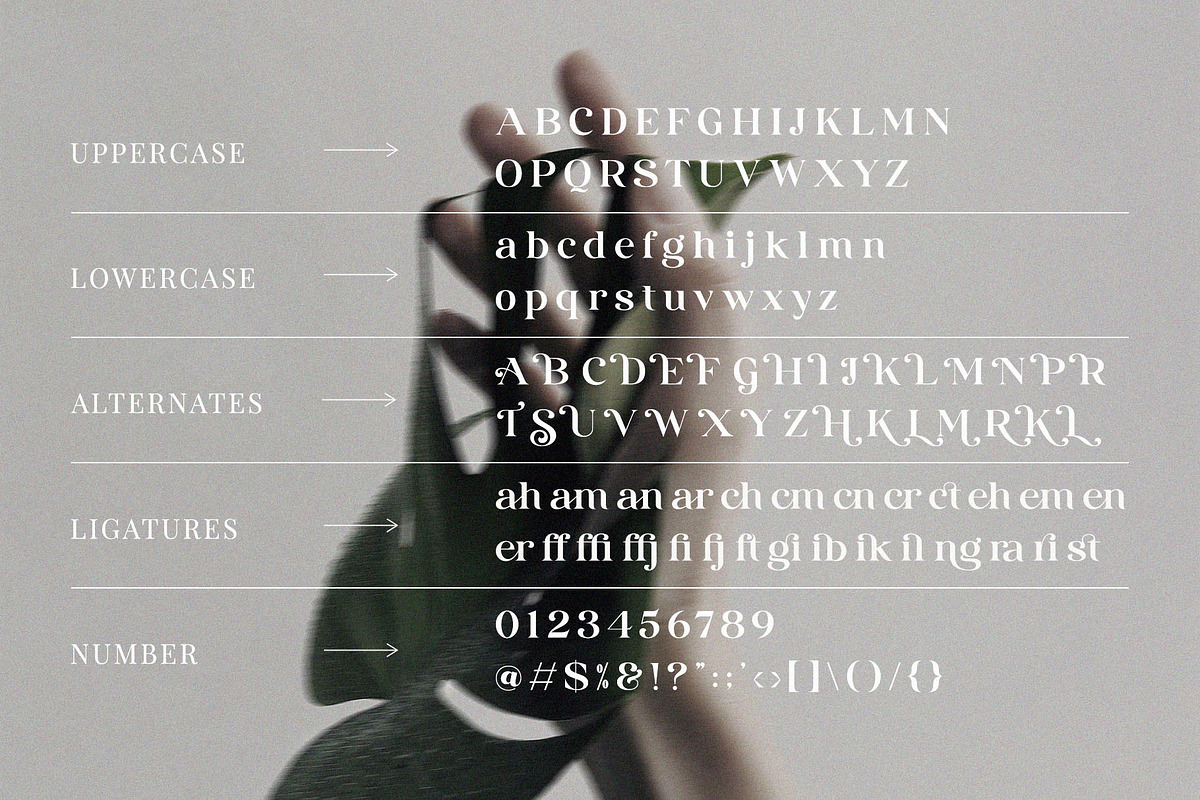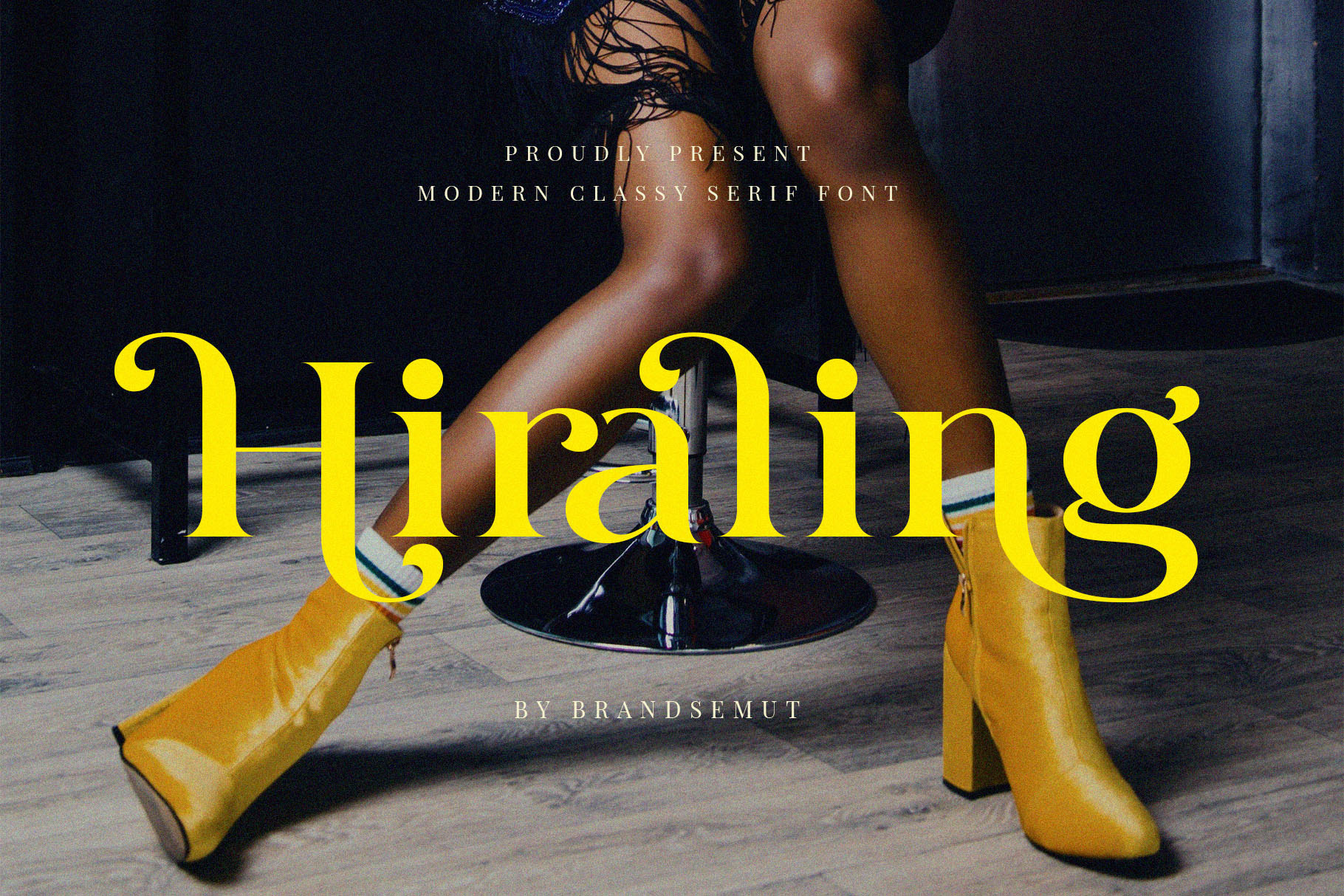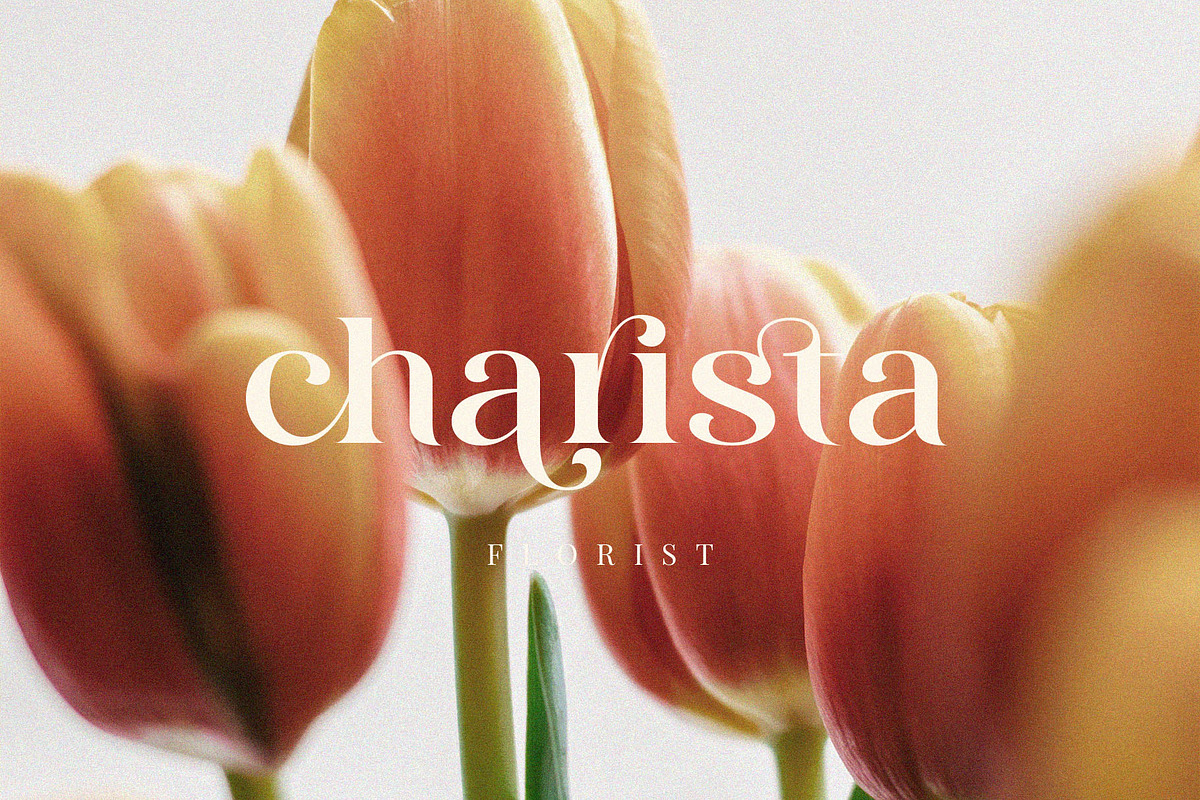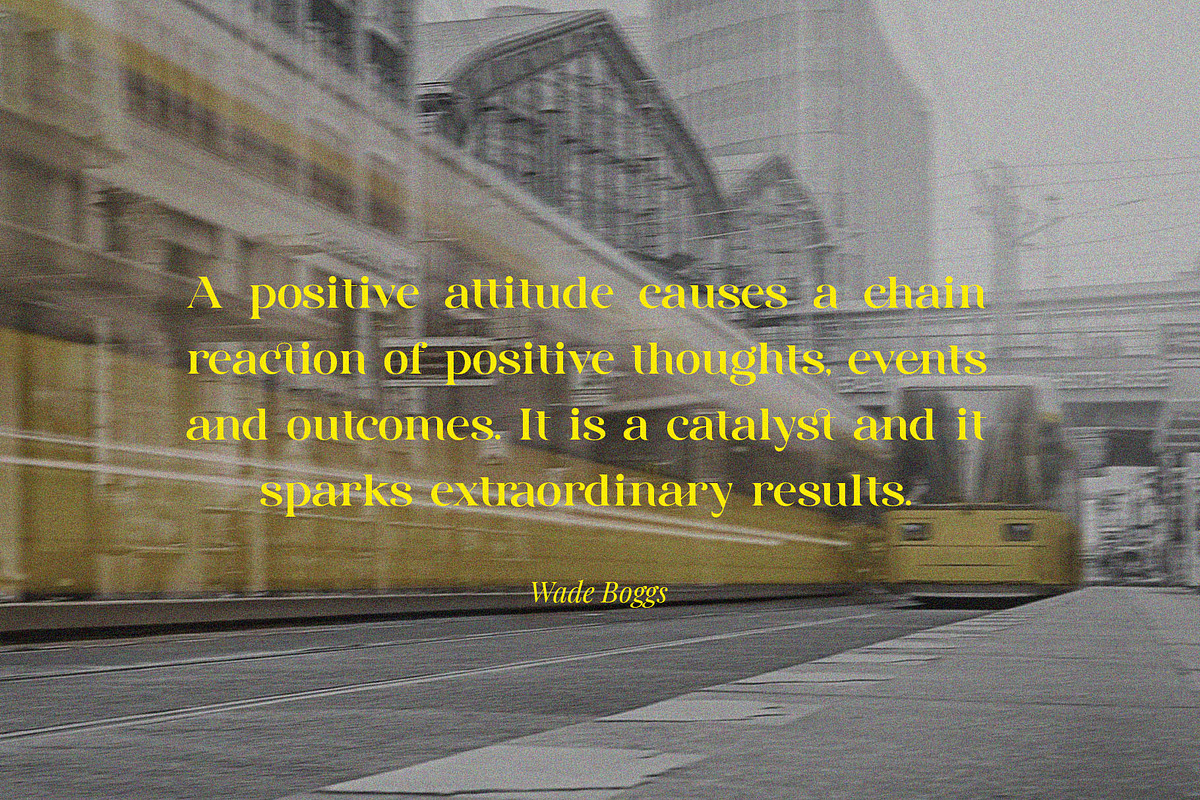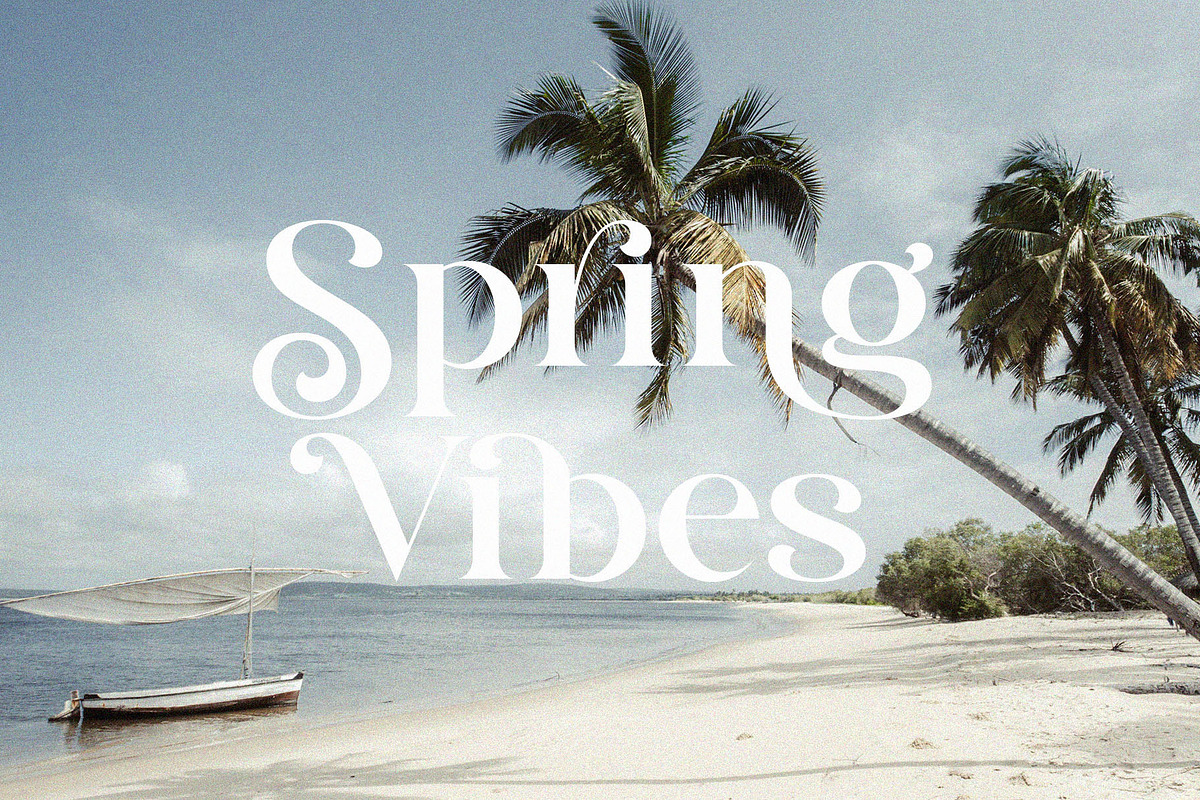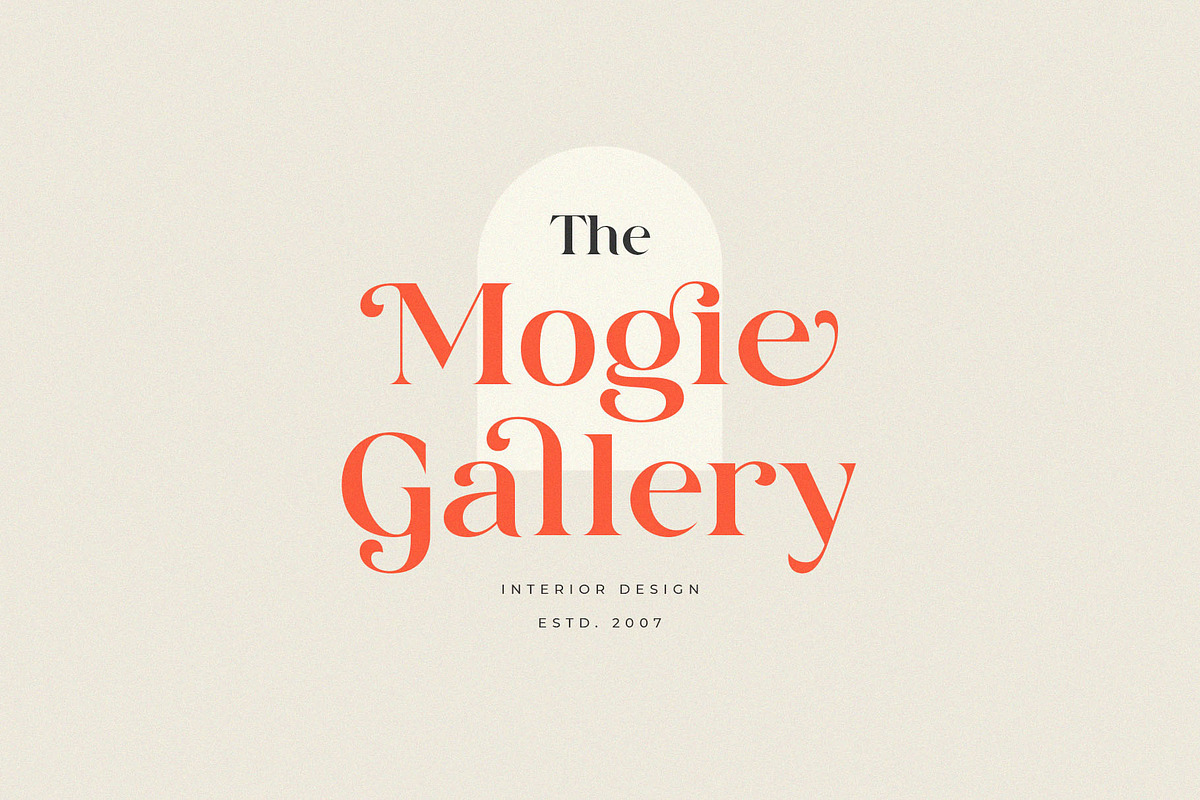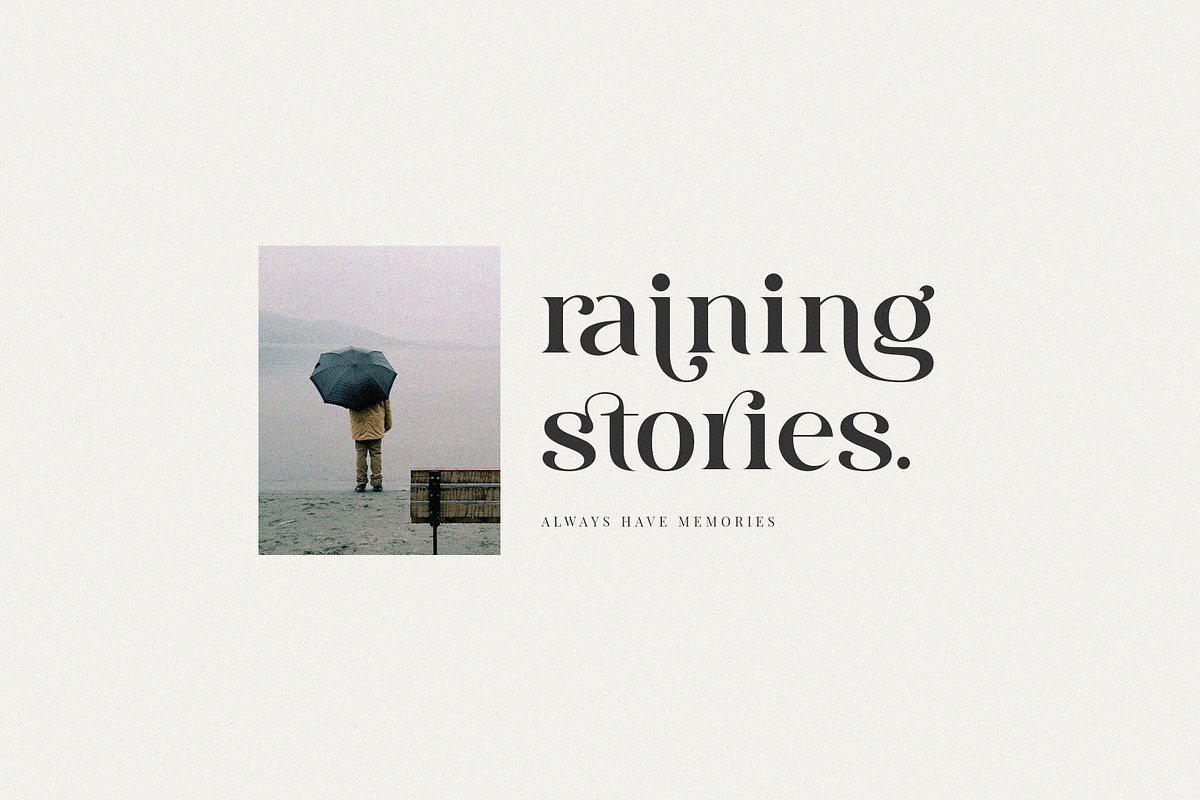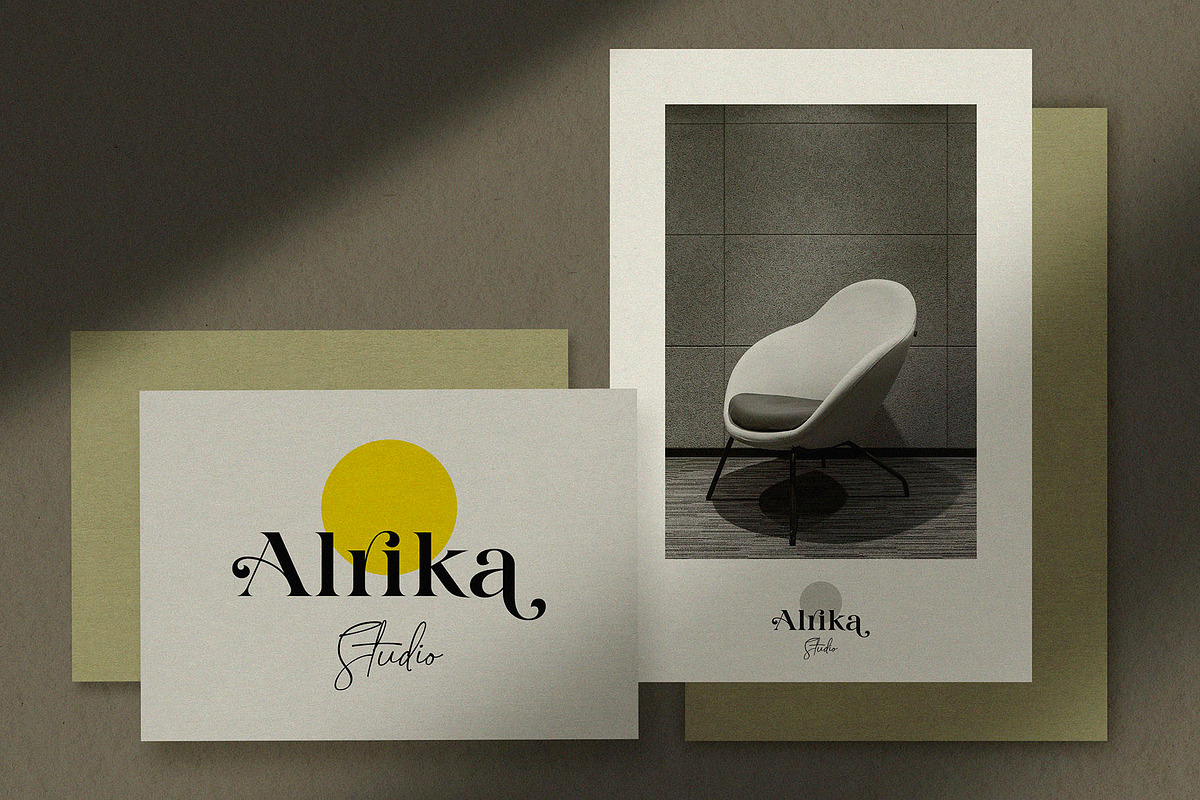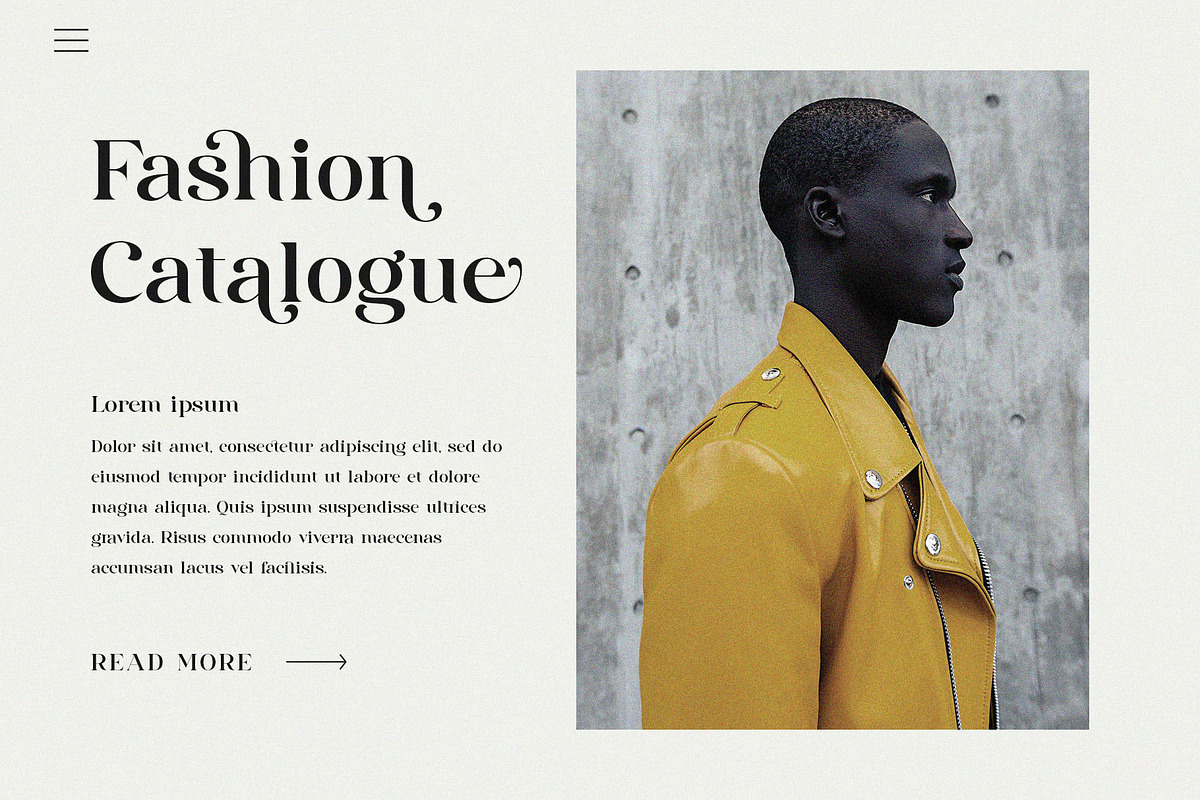
Hiraling – Modern Classy Serif Font
Introducing Hiraling Modern Classy Serif Font. Hiraling is a elegant and modern typeface, best used as a display for headings, logos, branding, magazines, product packaging and invitations. Hiraling come with clean lines and smooth curves give any project an extra touch of class.